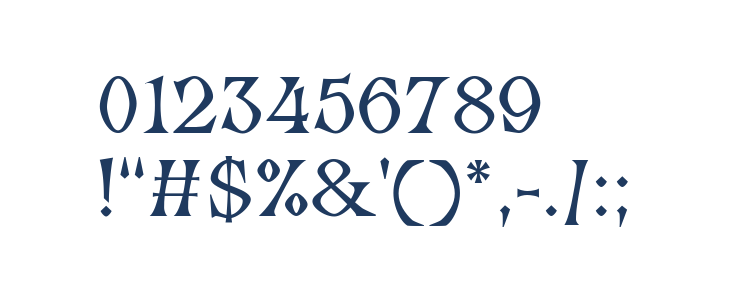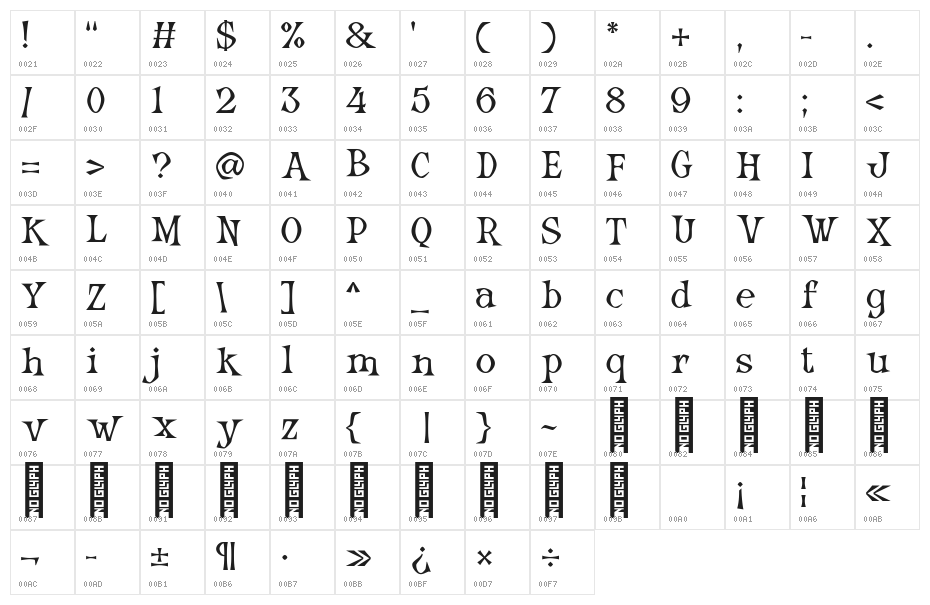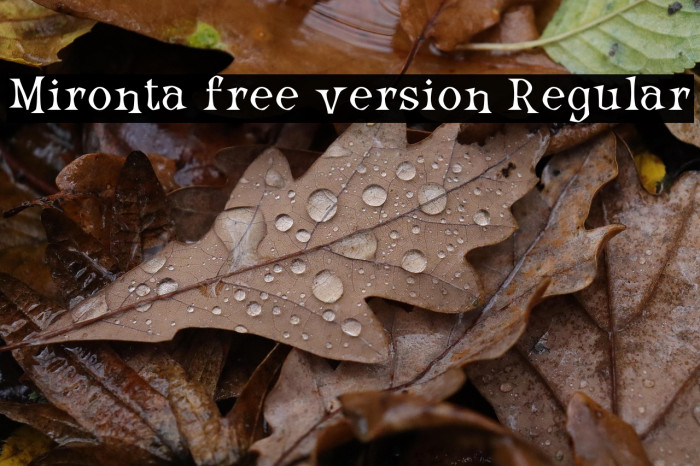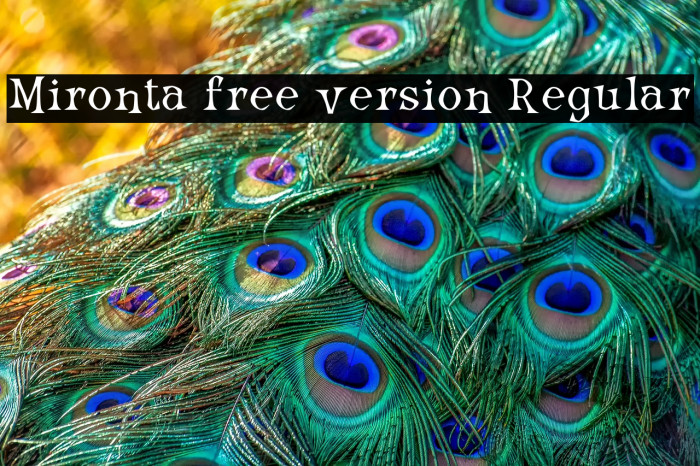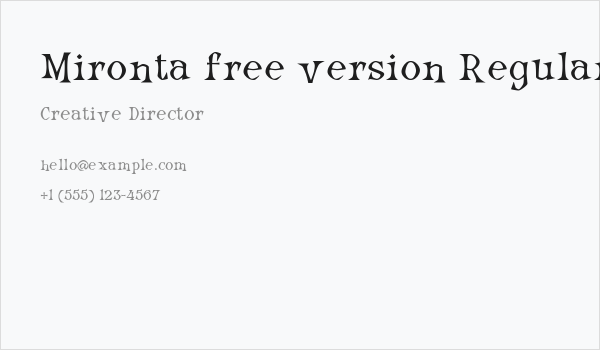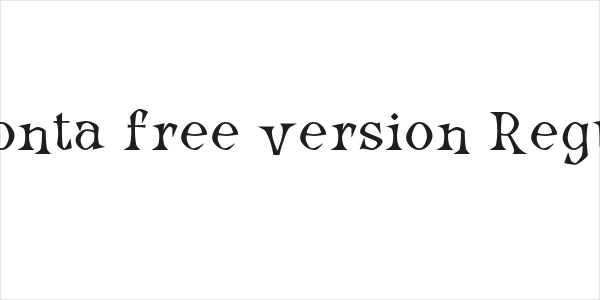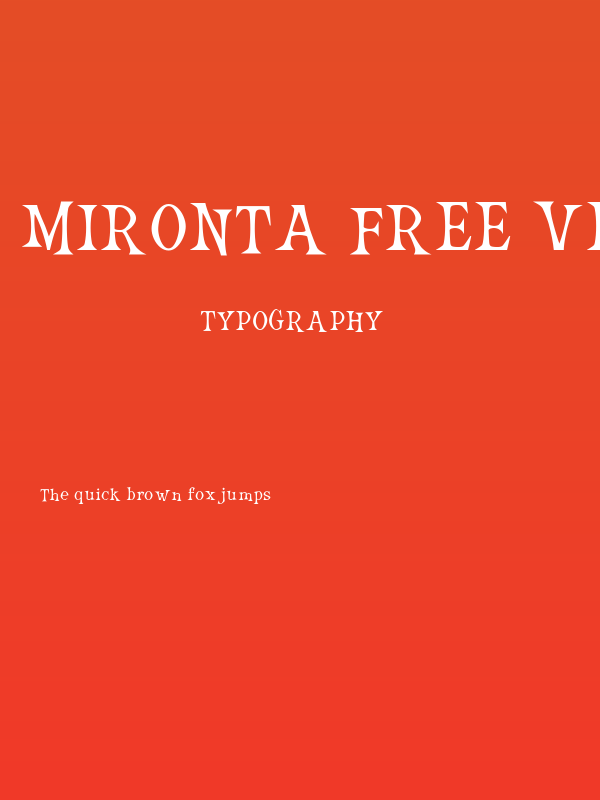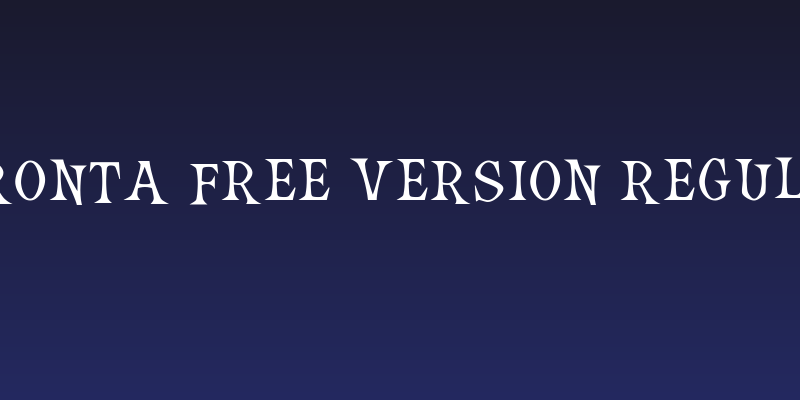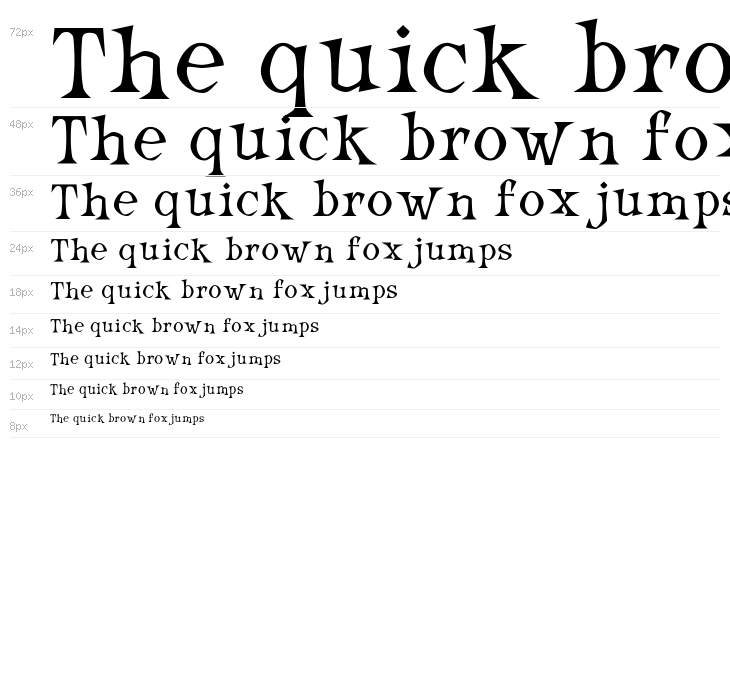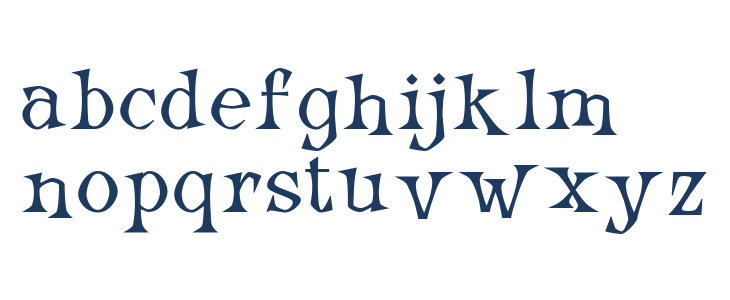
Mironta free version Regular Font
Mironta free version Regular Description
This font features a unique and artistic style with a decorative flair. The characters exhibit a playful yet sophisticated design, characterized by sharp edges and varying stroke widths that create a dynamic visual rhythm. The uppercase letters are bold and commanding, while the lowercase letters maintain a whimsical touch. Numbers and special characters follow the same stylistic cues, ensuring consistency across all glyphs. The font's distinct personality makes it suitable for creative projects that require a touch of elegance and originality.